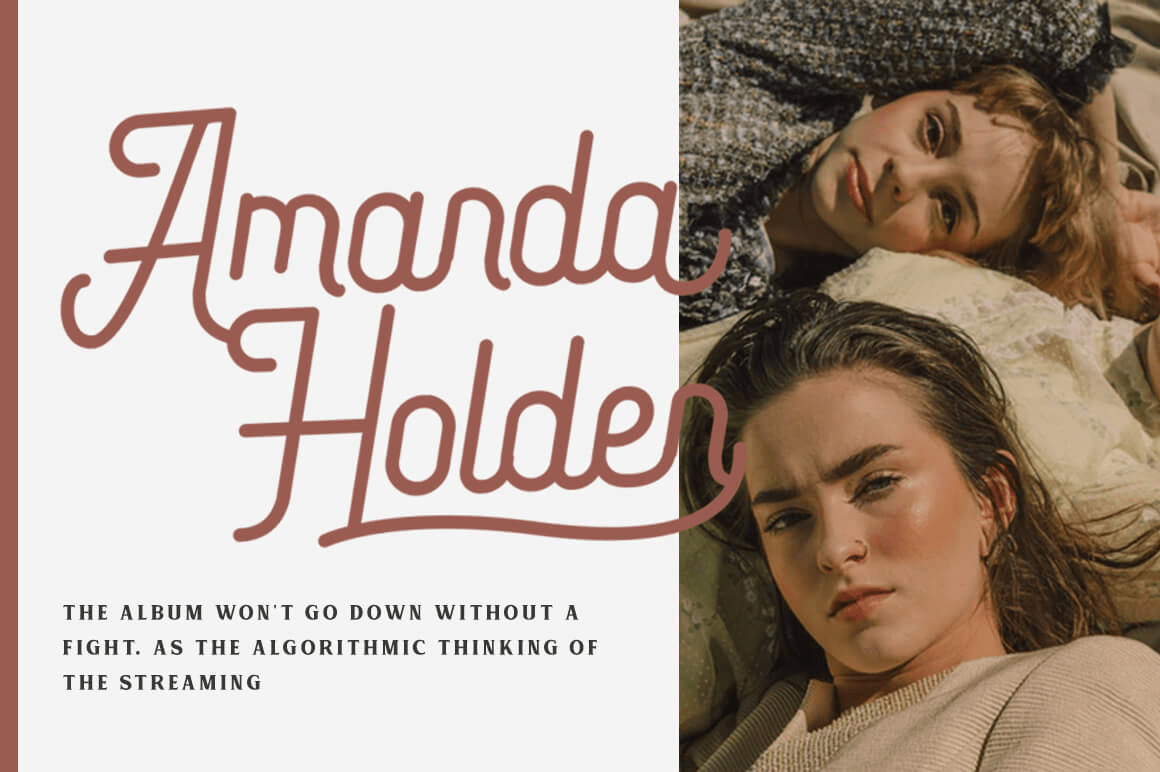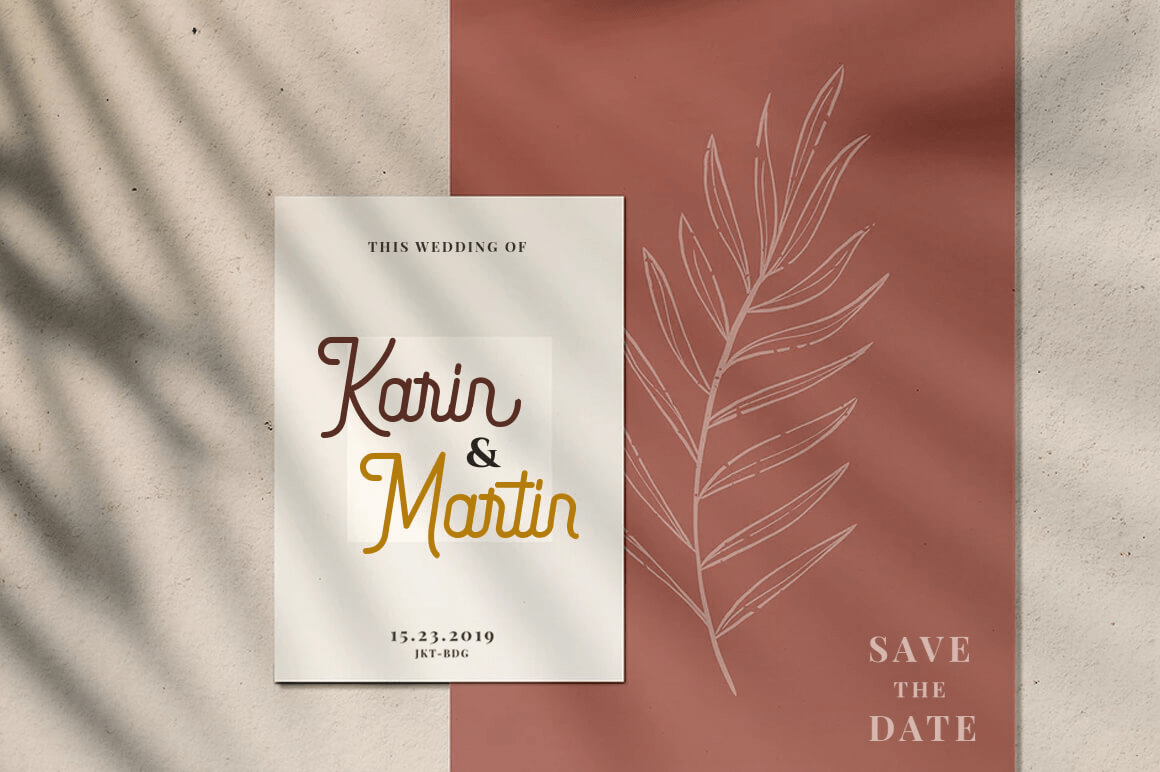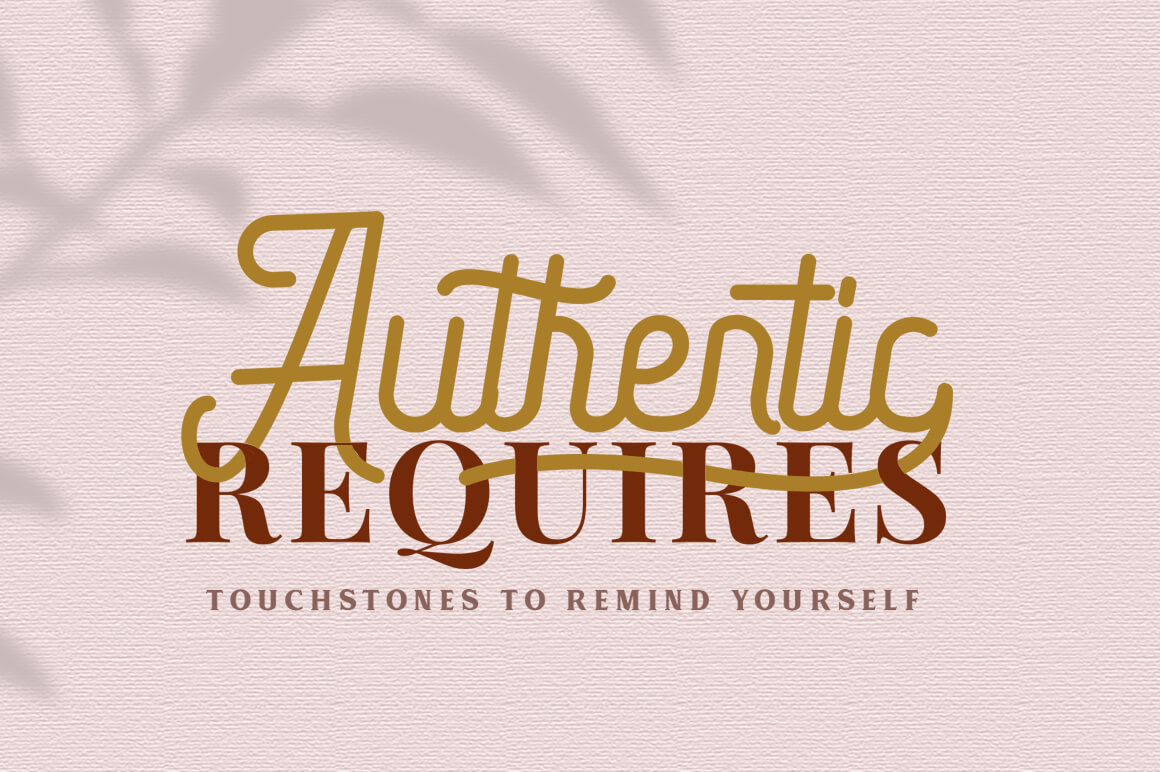
About Quefira
Quefira Script is clean and minimalistic script with beautiful ligature and alternate font. It also works wonderfully on its own for logos, quotes, and more! All characters have an imperfect shape that gives a natural look in design. It easily coordinates…